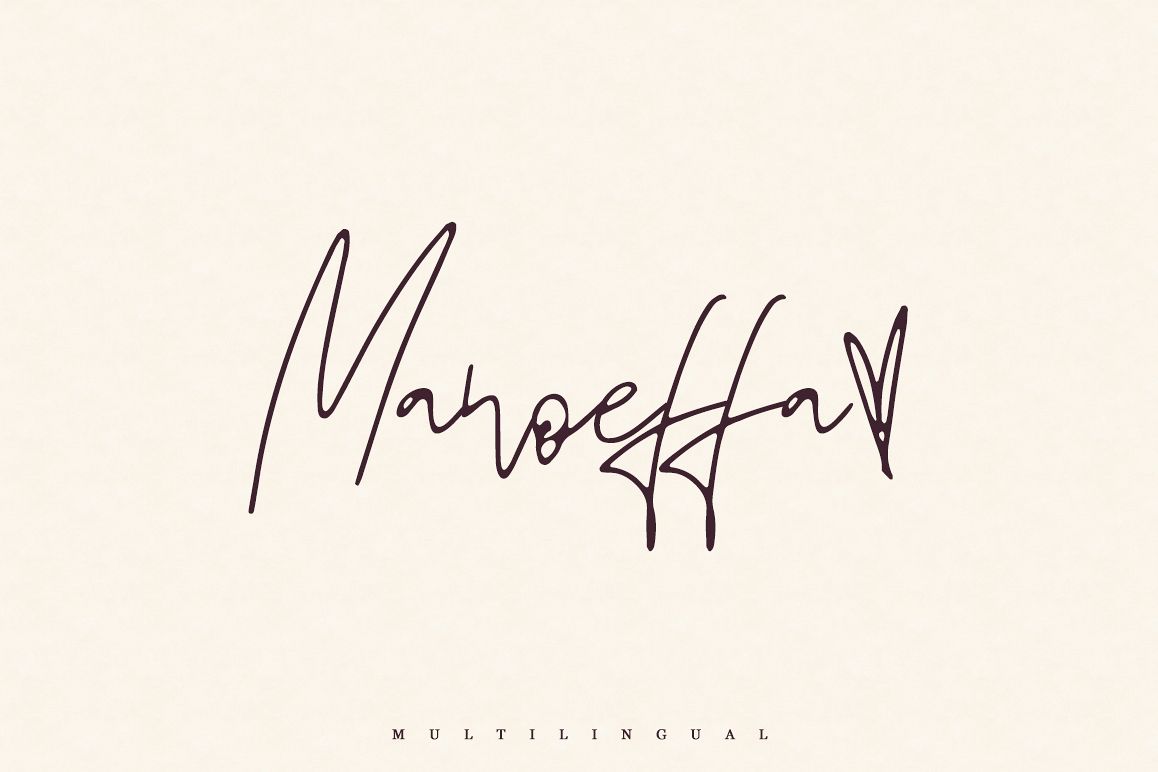
Manoeffa
Introducing MANOEFFA Handwritten casual font with multilingual.
Manoeffa is modern font, every single letters have been carefully crafted to make your text looks beautiful. With modern script style this font will perfect for many different project ex: logo, photography, watermark, quotes, blog header, poster, wedding, branding, logo, fashion, apparel, letter, invitation, stationery, etc.